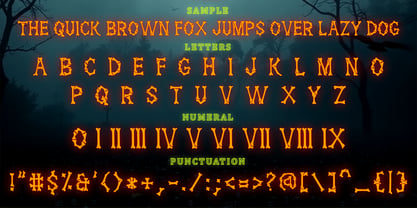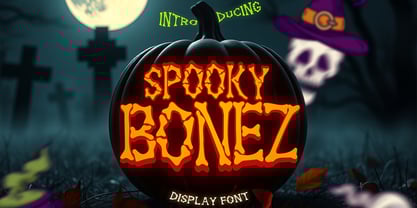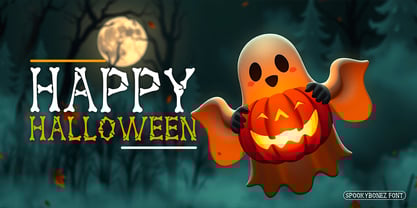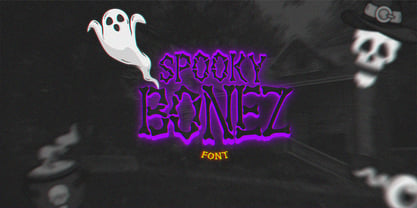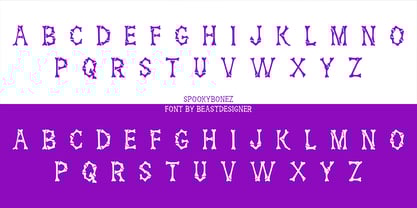
Spooky Bonez
von Beast Designer
Die Schriftfamilie Spooky Bonez wurde von Mohammed Lamjidi entworfen und von Beast Designer veröffentlicht. Spooky Bonez enthält 1 Stile.
Get in the Halloween spirit with SpookyBonez Font, a creepy bone-style Halloween font perfect for horror posters, spooky party invites, haunted house flyers, t-shirts, and digital designs. Each letter looks hand-carved from bones, giving your text a terrifying yet playful Halloween vibe. Ideal for creators, crafters, and graphic designers who want to add a spooky, eerie, and bone-chilling touch to their projects. Use SpookyBonez Halloween Font for: Halloween graphics & decorations Scary movie titles & YouTube thumbnails Cricut, Silhouette & print-on-demand projects Bring your Halloween designs to life with the ultimate spooky bone lettering font — fun, bold, and hauntingly unique!